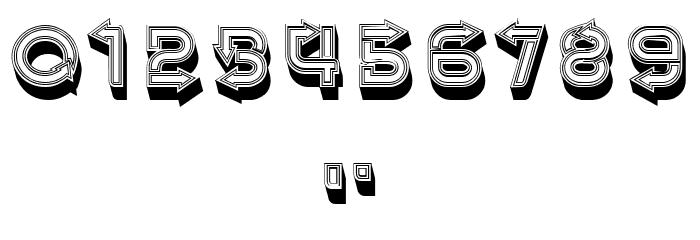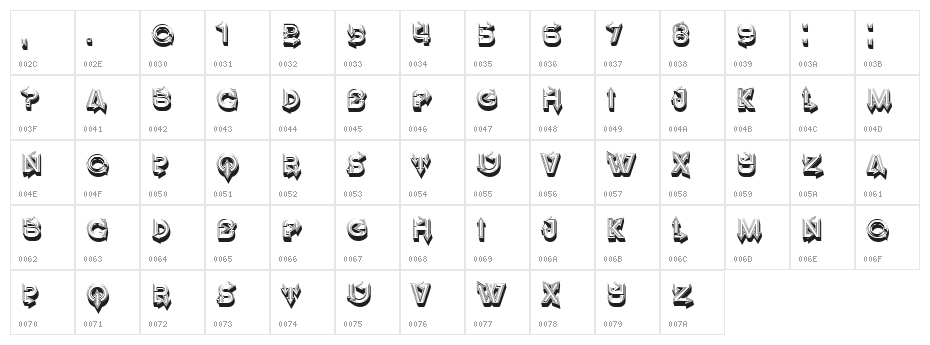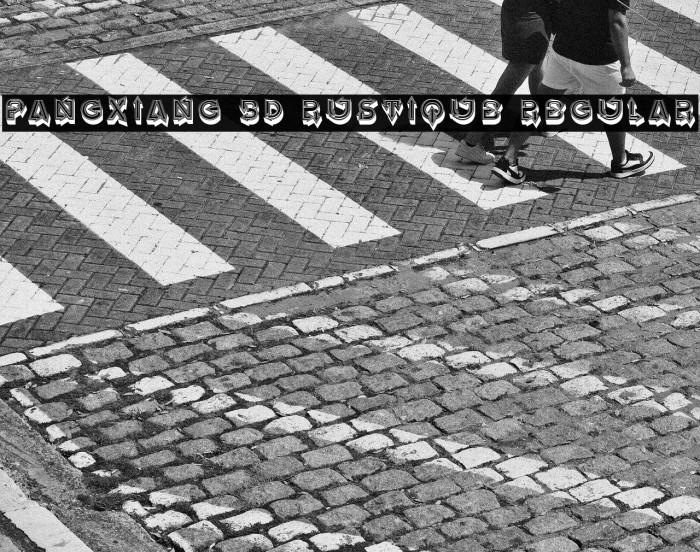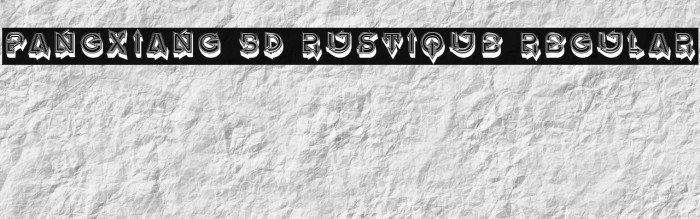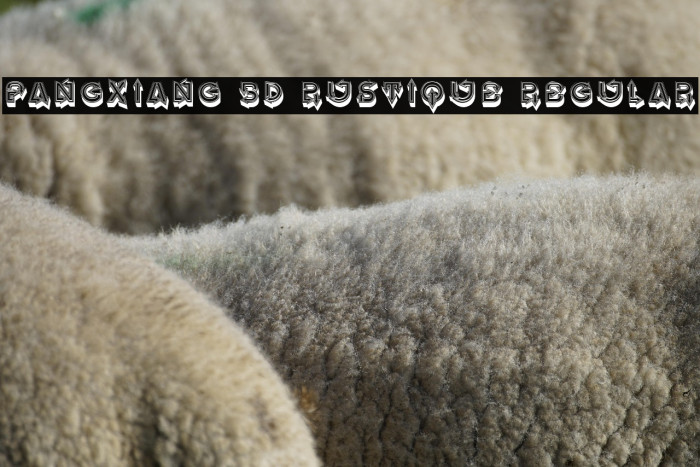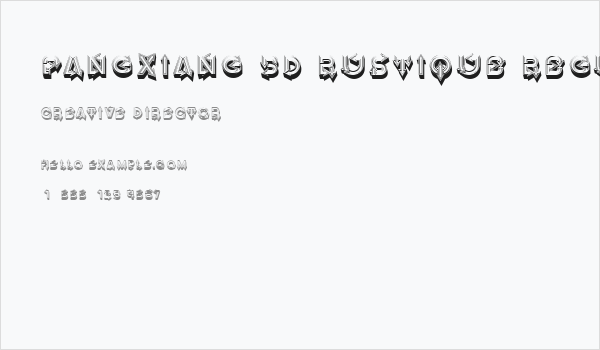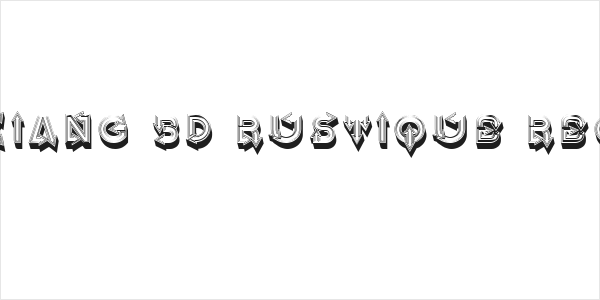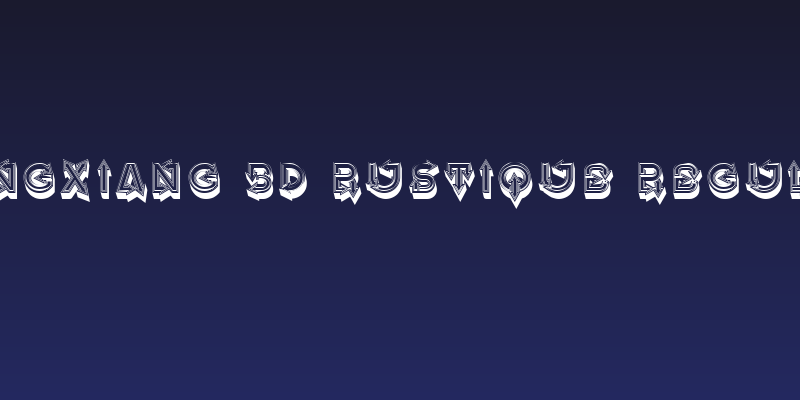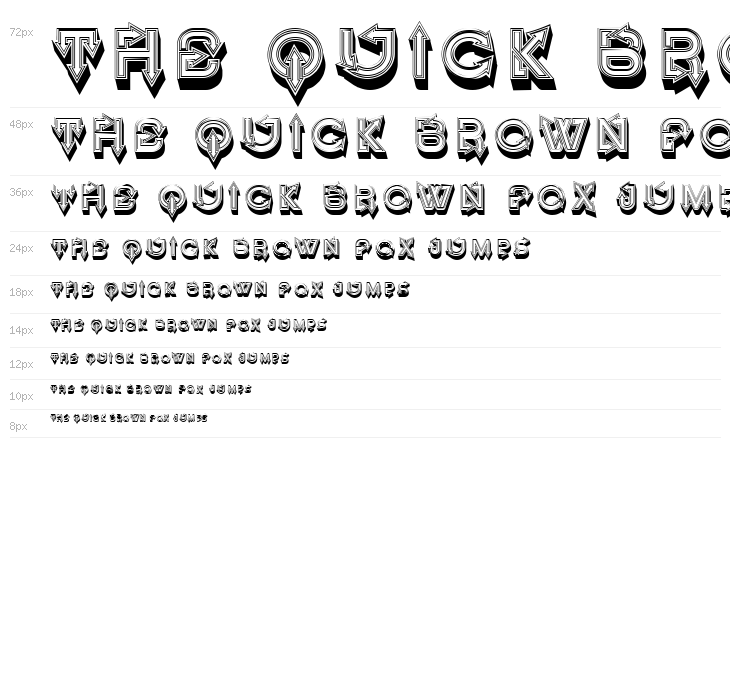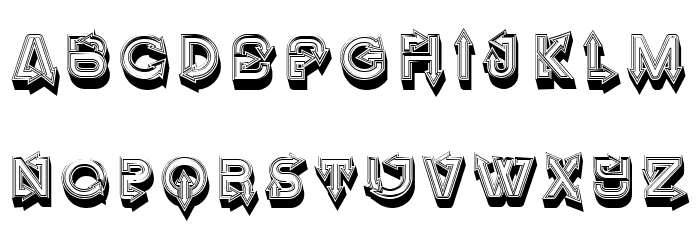
Fangxiang 3D Rustique Regular Font
Fangxiang 3D Rustique Regular Description
This font features a bold and striking 3D effect that gives each character a sense of depth and dimension. The letters are designed with intricate geometric patterns and sharp angles, creating a dynamic and eye-catching appearance. The bold outlines and shadowing enhance the three-dimensional look, making the characters stand out prominently. This style is reminiscent of retro and futuristic design elements, combining a sense of nostalgia with modern flair. The font's unique structure and artistic details make it suitable for creative and impactful design projects.
| Proposed Projects | Ideal for posters, logos, video game graphics, and any project requiring a bold, eye-catching typeface. |